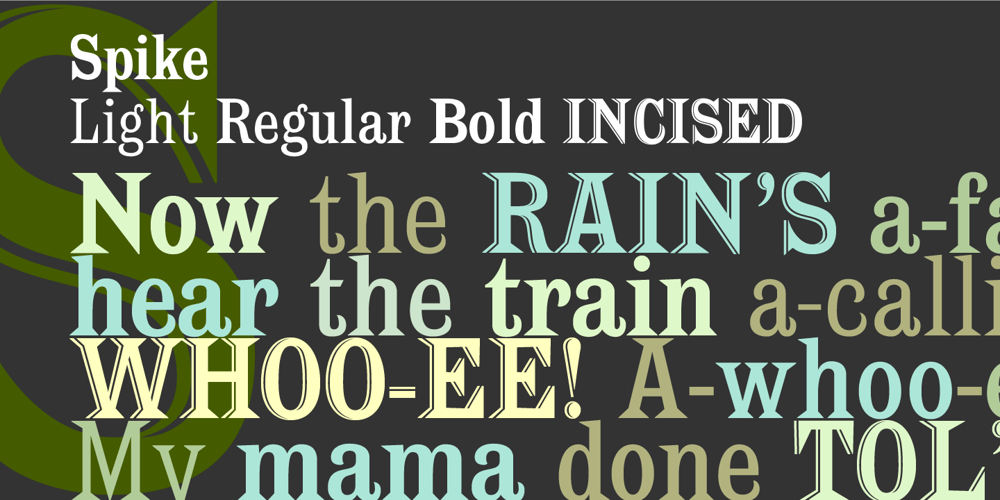
Spike
Spike font
Spike Font Family was designed by David Vereschagin and published by Quadrat. Spike contains 4 styles and family package options. Spike was designed as a Latin type family, with the characteristic triangular serifs, but with more character and range of weights than the more common latin faces available. Designed as a display face, it could be used as a flavorful text face in special situations. The complete family consists of four fonts: light, regular, bold and an all-caps incised version.